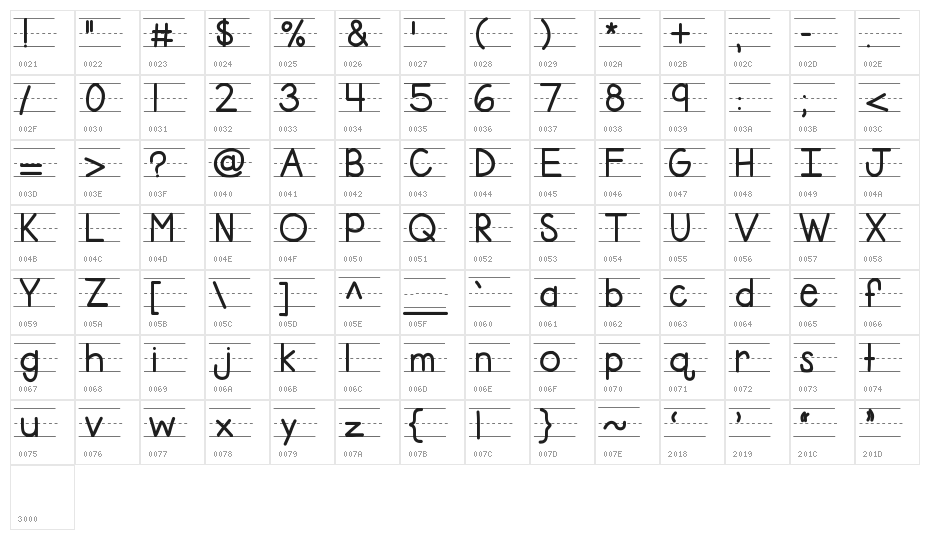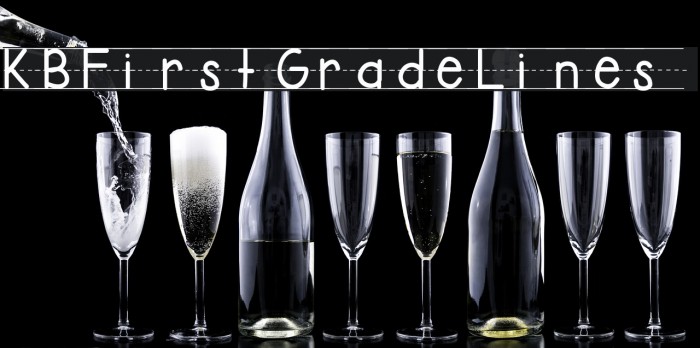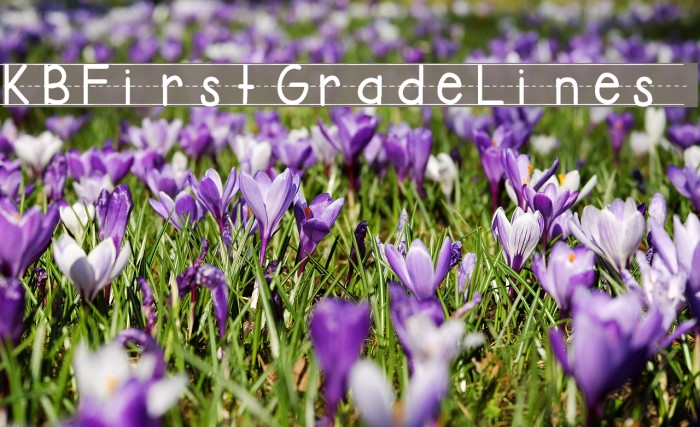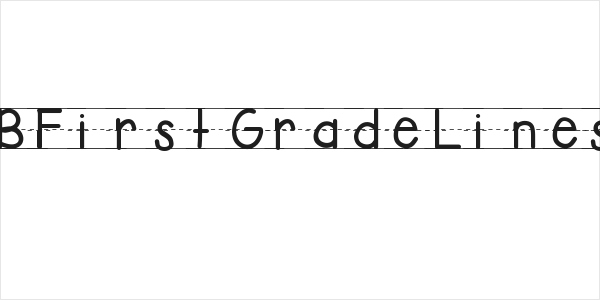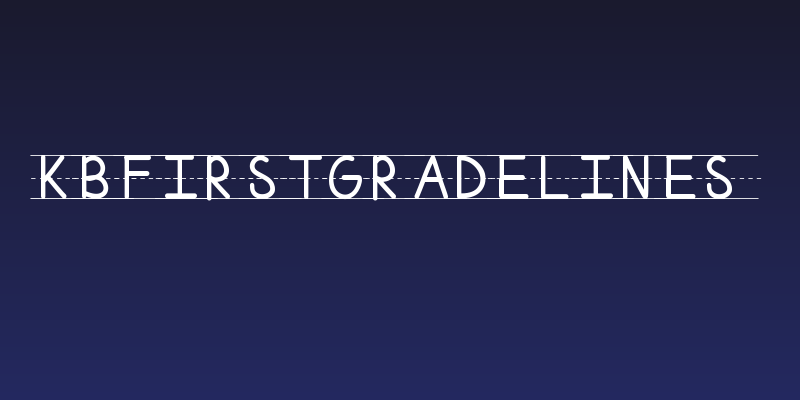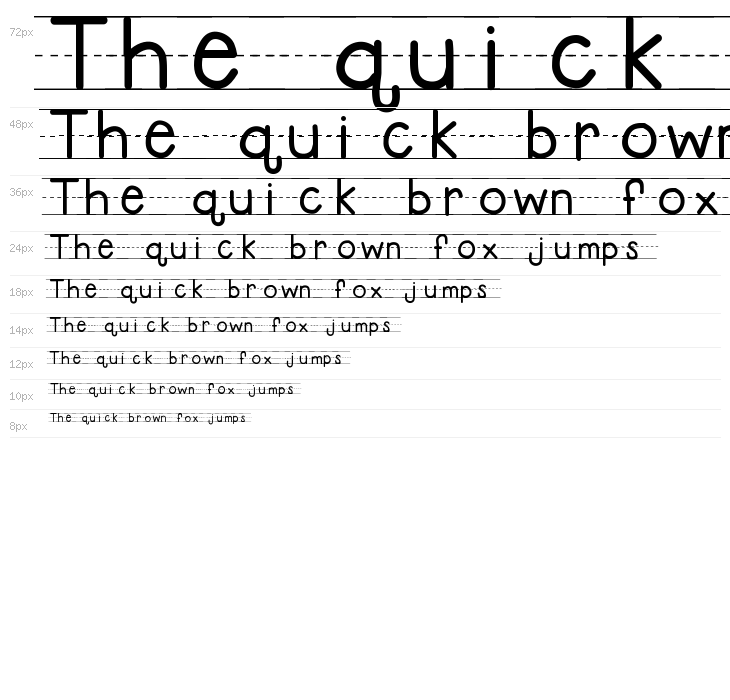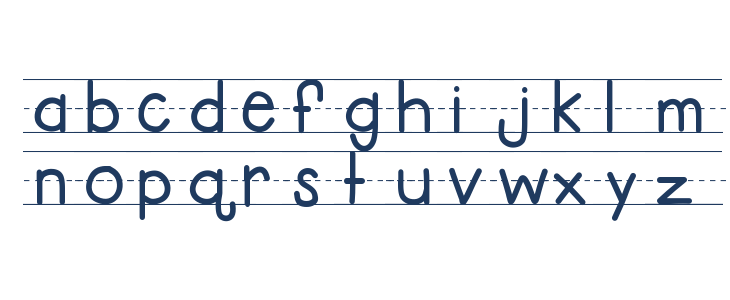
KBFirstGradeLines Font
KBFirstGradeLines Description
This font is designed to mimic the handwriting style taught in early education, featuring clear and simple letterforms that are easy to read. Each character is crafted with a focus on legibility, making it ideal for educational purposes. The letters are evenly spaced and aligned with guiding lines, which help in maintaining uniformity and consistency. The font includes both uppercase and lowercase letters, numerals, and a variety of special characters, all presented in a straightforward and uncomplicated manner. The strokes are uniform in thickness, contributing to a clean and uncluttered appearance.
| Overall Style | Educational |
| Use Case | Educational materials, children's books, learning tools. |
| Proposed Projects | Ideal for educational materials, children's books, and learning tools. |